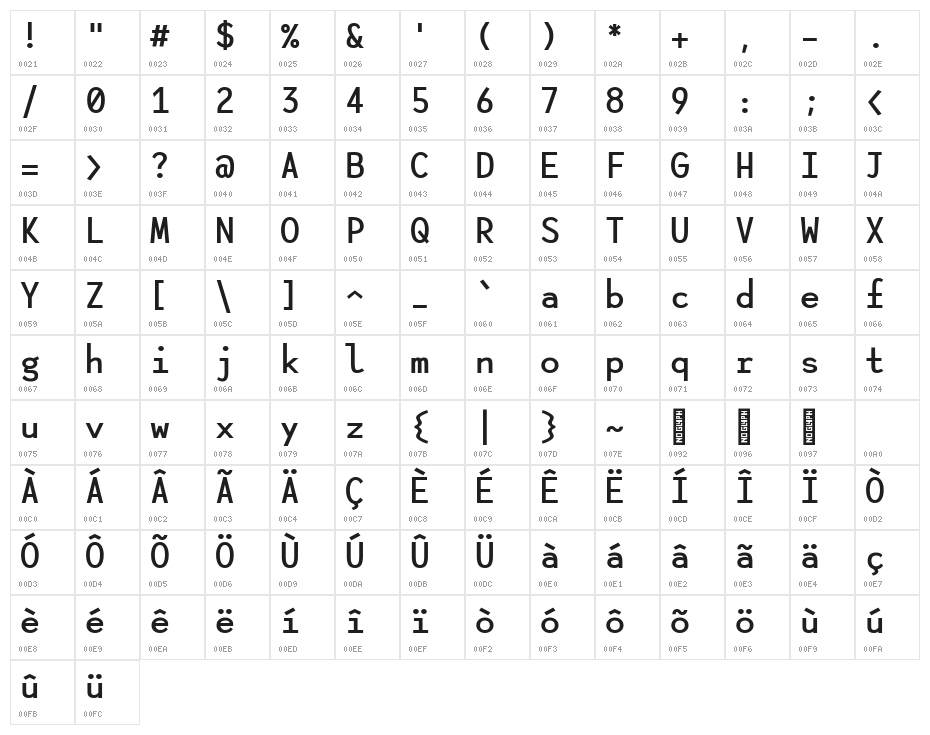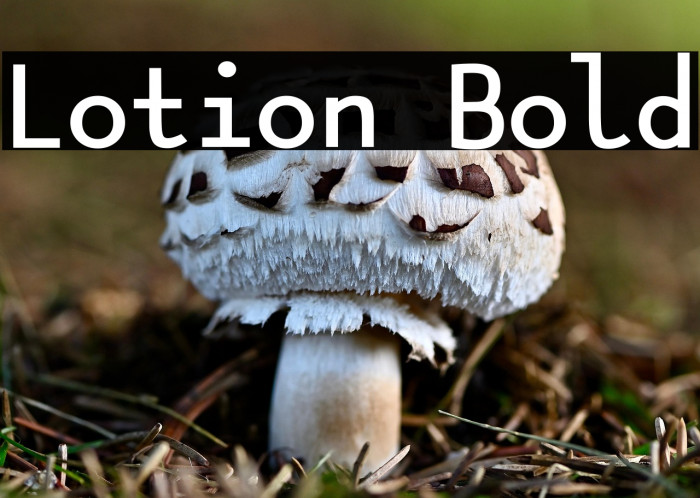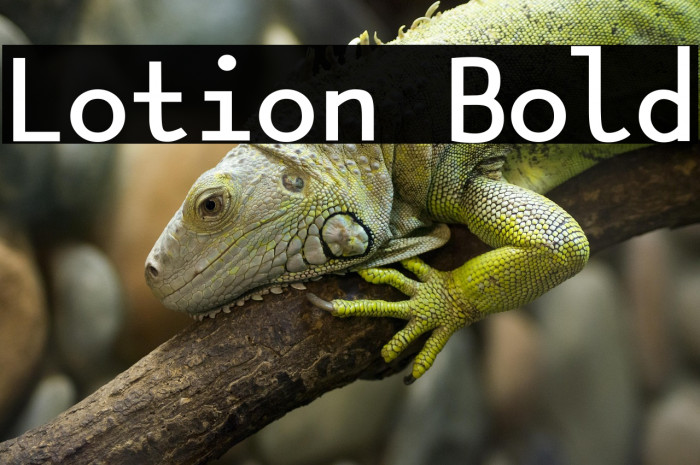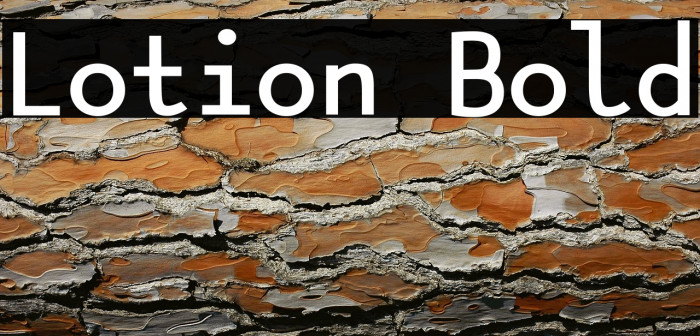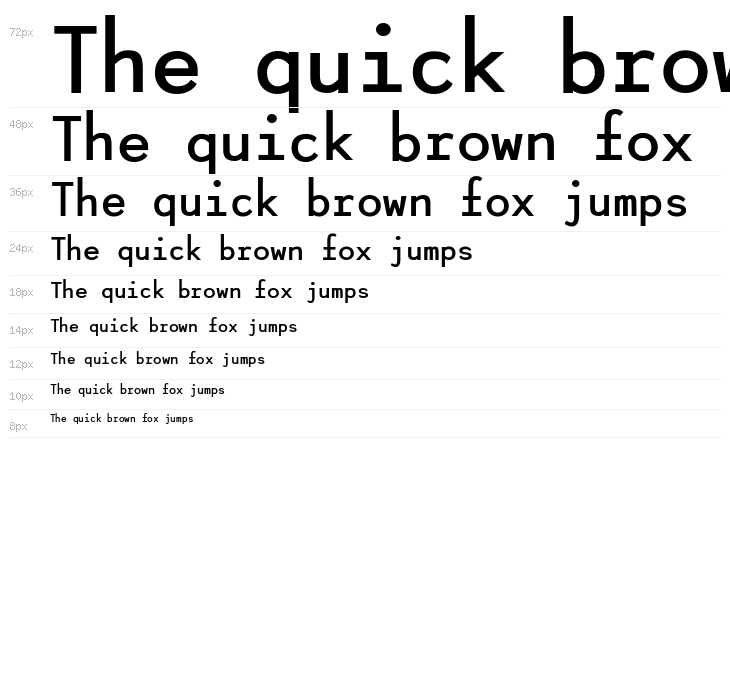
Lotion Bold Font
Lotion Bold Description
This font features a bold and clean design with a modern sans-serif style. The characters are well-balanced, offering a uniform appearance that enhances readability. Uppercase and lowercase letters maintain a consistent height and width, contributing to a cohesive look. The numerals are straightforward and align perfectly with the overall style, making them easy to distinguish. Special characters are designed with clarity, ensuring they stand out without disrupting the flow of text. The font's simplicity and boldness make it versatile for various applications.
| Proposed Projects | Ideal for branding, headlines, posters, and digital content where clarity and impact are essential. |